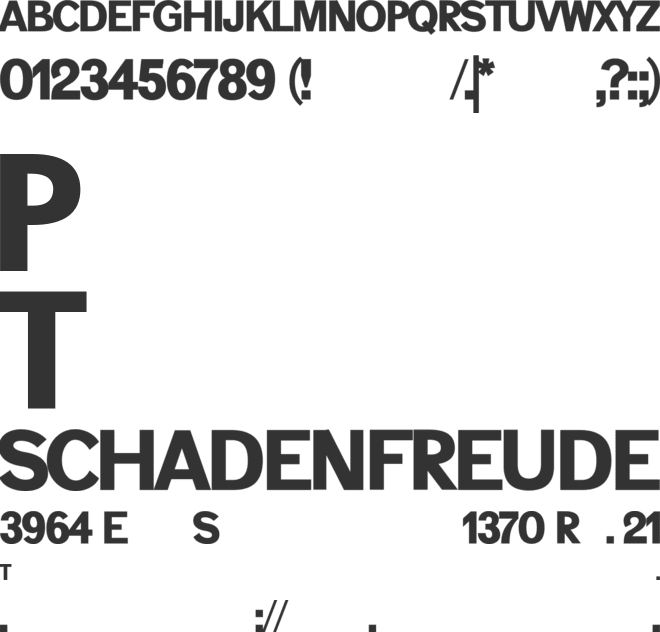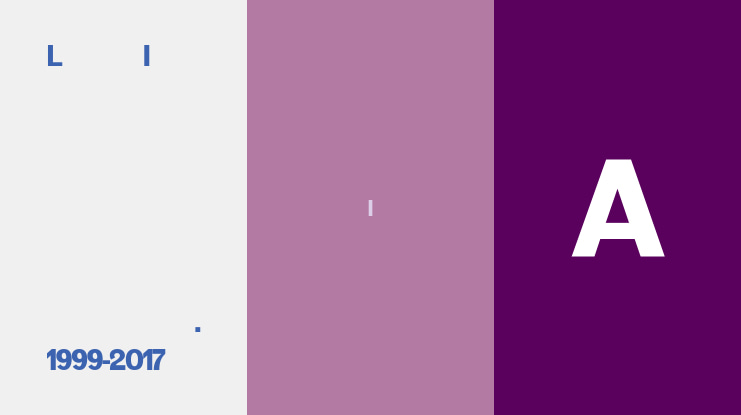
sansdiego Font Family
🎨 Font Name: SANSDIEGO by Minimalist Art Studio
🎨 Font Description: SANSDIEGO is a geometric sans serif with precision and versatility, ideal for tech, branding, and editorial layouts.
βœ” Complete Latin set + multilingual diacritics
βœ” Alternates, stylistic sets & ligatures
βœ” Numbers, small caps, and extended punctuation
βœ” Bonus italics and family styles